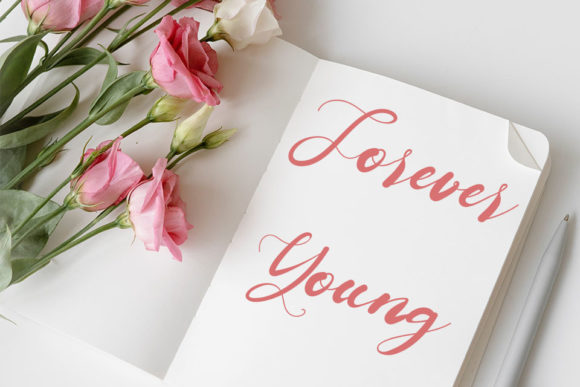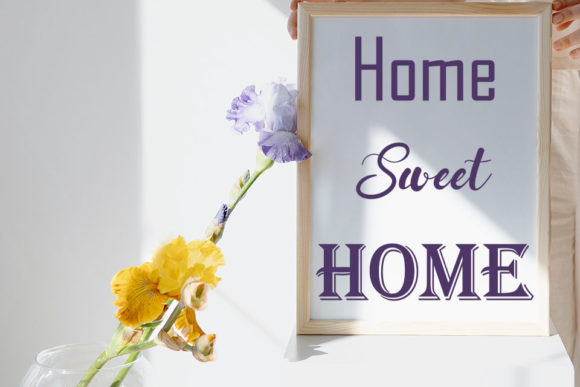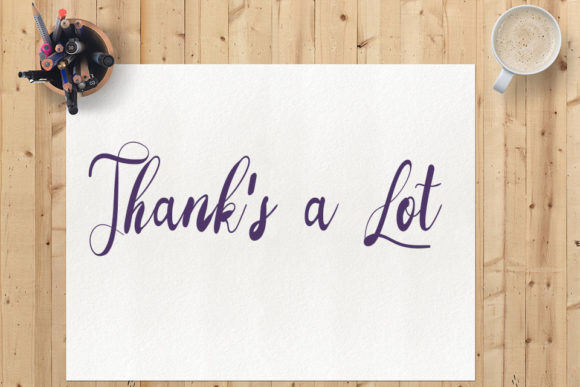
The Elusive Perfect Font: My Encounter with Another Love
Ah, the eternal quest for the perfect font. You know, that one design project where everything seems to be falling into place, but the font just won’t cooperate. I recall working on a wedding invitation design, hours spent searching for that elusive elegant yet modern feel. My client wanted something that exuded love and sophistication, but my usual go-to fonts just didn’t cut it. That’s when I stumbled upon Another Love, an exquisite handwritten font that instantly captured my heart.
First Impressions: A Love at First Sight
Another Love is more than just a font; it’s an experience. Masterfully designed with classy calligraphic influences, it feels both contemporary and refreshingly unique. It’s like finding that one perfect dress or accessory that elevates your entire design to the highest level. I was intrigued by its promise to bring a touch of elegance and love to any project, and I couldn’t wait to dive in and explore its features.
Let’s get down to business. Here’s what I love about Another Love:
- ✨ Exquisite handwritten feel that’s both elegant and modern
- ✅ Highly legible, even at smaller sizes
- 💫 Beautifully designed with a range of OpenType features and glyphs
- 🎨 Versatile and perfect for a variety of design projects, from wedding invites to branding
And, like any font, it has its quirks:
- 🤔 Some users might find the font a bit too delicate for certain design contexts
- ⚠️ Limited availability of certain stylistic alternates in older software
A Practical Guide: Bringing Another Love to Life
The Story Behind Another Love: A Designer’s Inspiration
The story goes that the designer of Another Love was inspired by the romance of handwritten letters and the elegance of calligraphy. With a passion for typography and a desire to create something truly unique, they poured their heart and soul into crafting a font that would make designers fall in love. And, judging by the response, they’ve succeeded.
| Font Name | Another Love Font |
| Author | muhawk47 |
| Is Another Love suitable for body text? | While Another Love is highly legible, its delicate nature makes it more suited for headings and titles. For body text, consider pairing it with a more straightforward font. |
| Does Another Love include any OpenType features? | Yes, Another Love comes with a range of OpenType features, including stylistic alternates and glyphs, which can be accessed in compatible software. |
| Is Another Love available in different weights or styles? | Currently, Another Love is available in a single style, but its versatility and range of OpenType features make it adaptable to various design needs. |
And there you have it – a deep dive into the charming world of Another Love. Whether you’re a designer, crafter, or hobbyist, this font has the potential to elevate your projects and bring a touch of love and elegance to your designs.